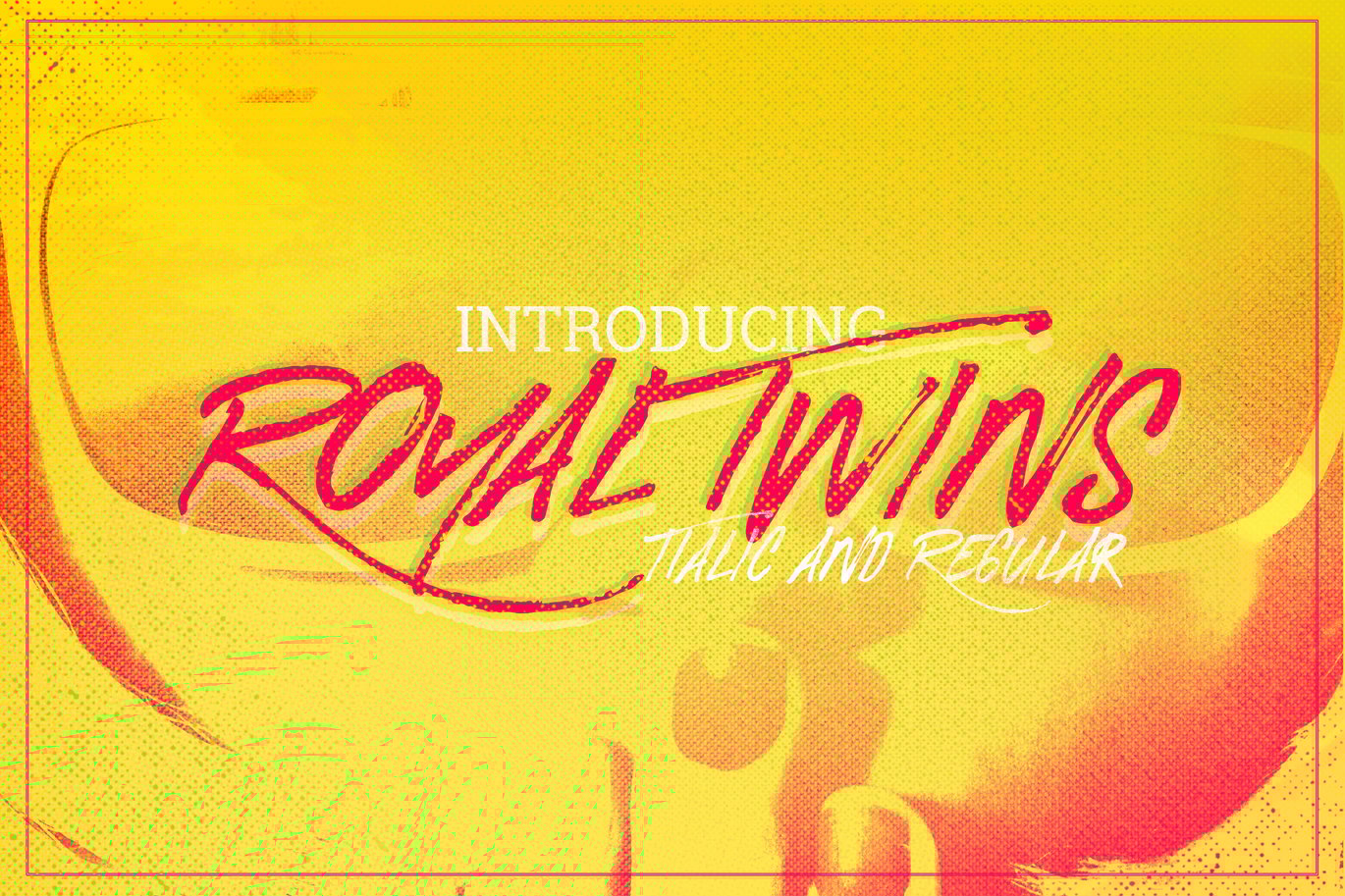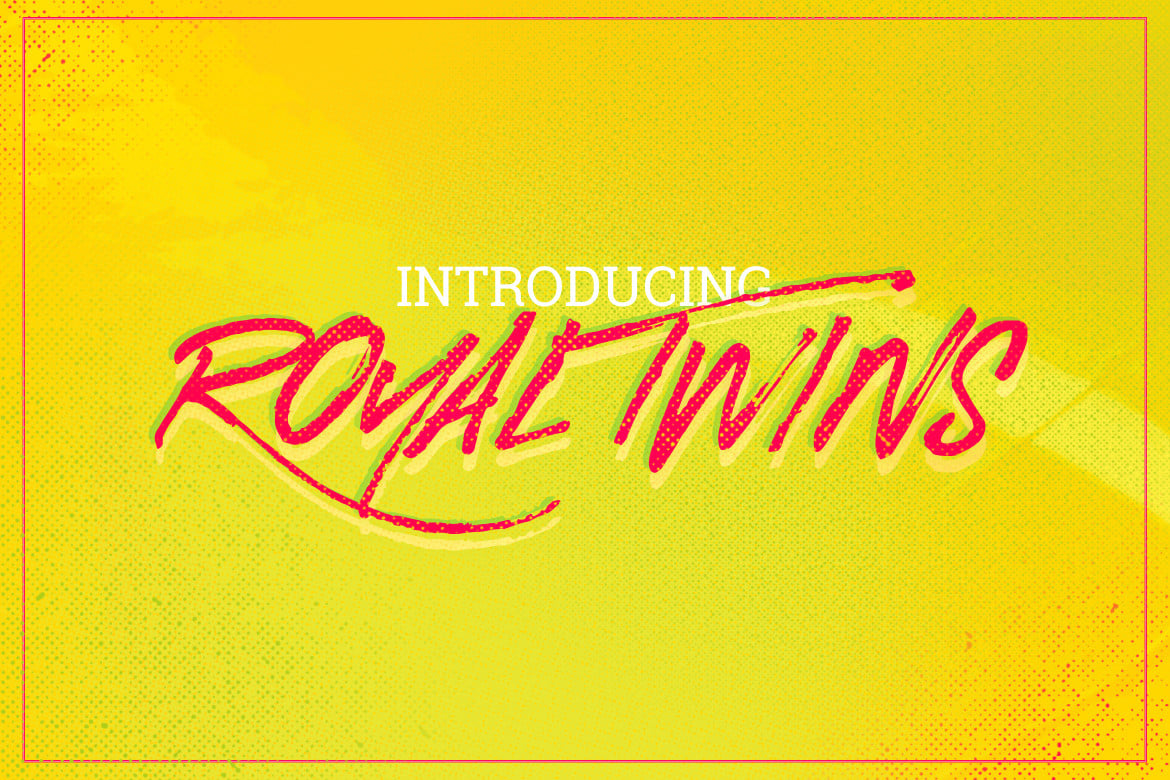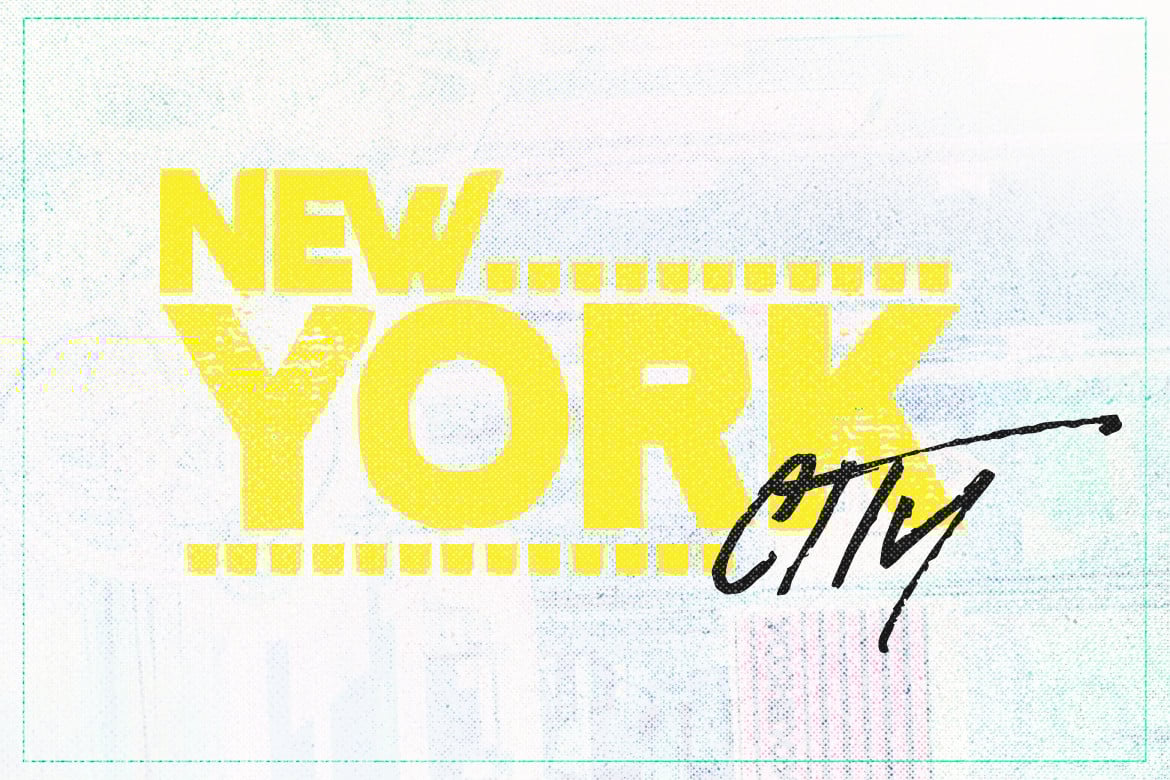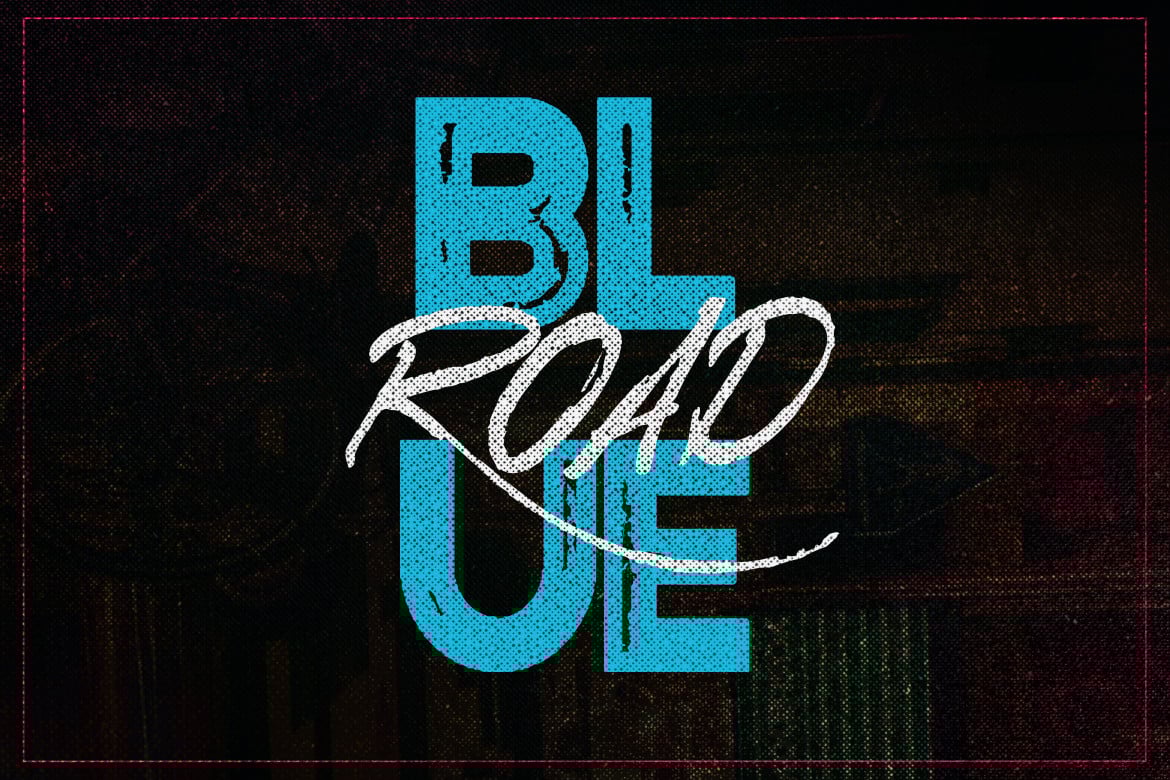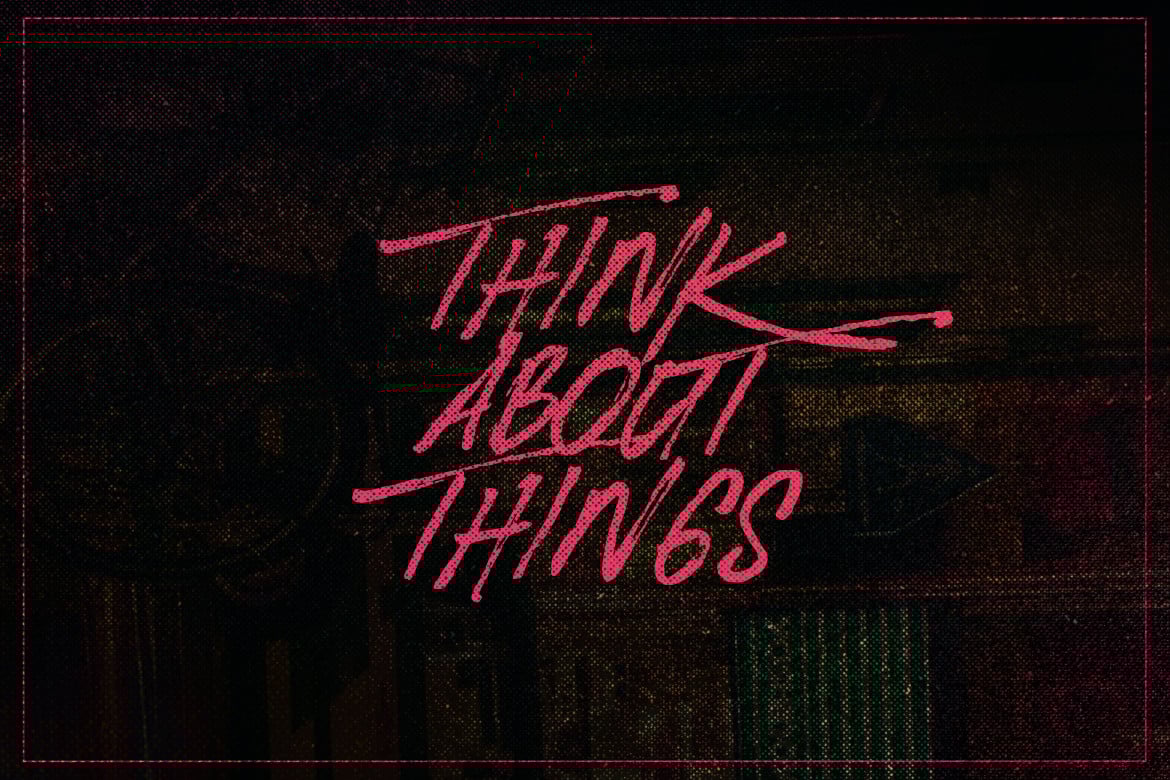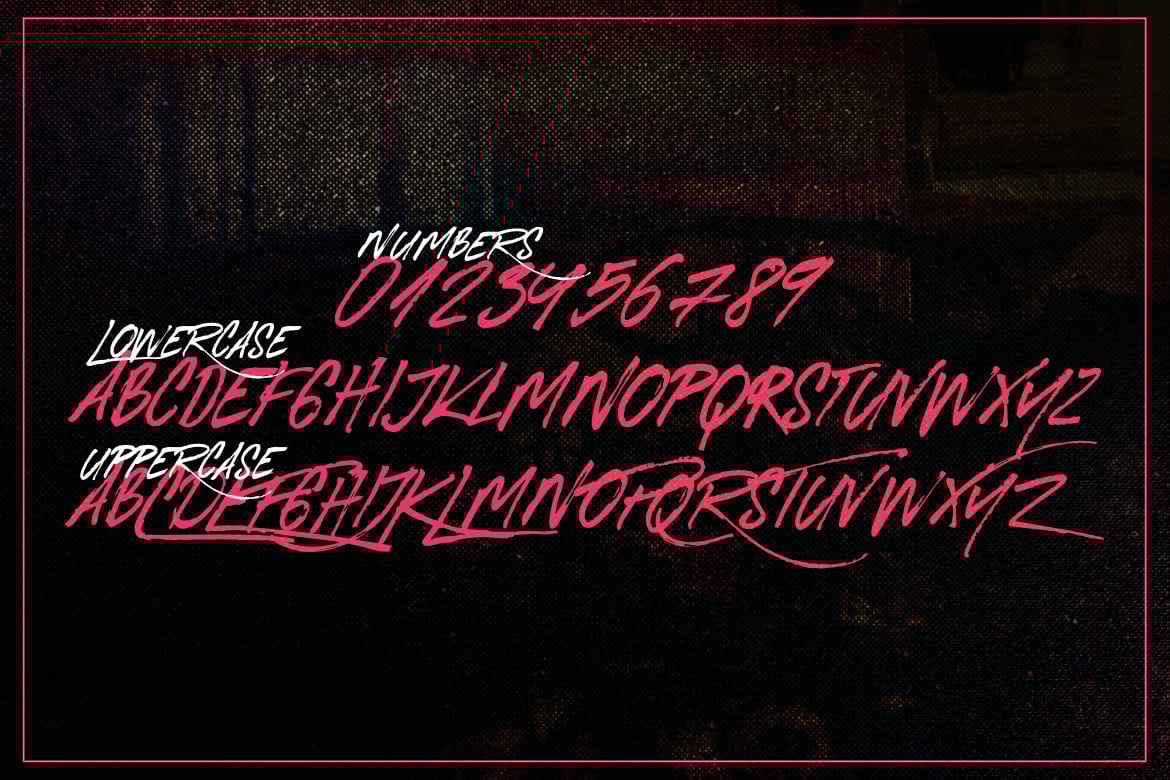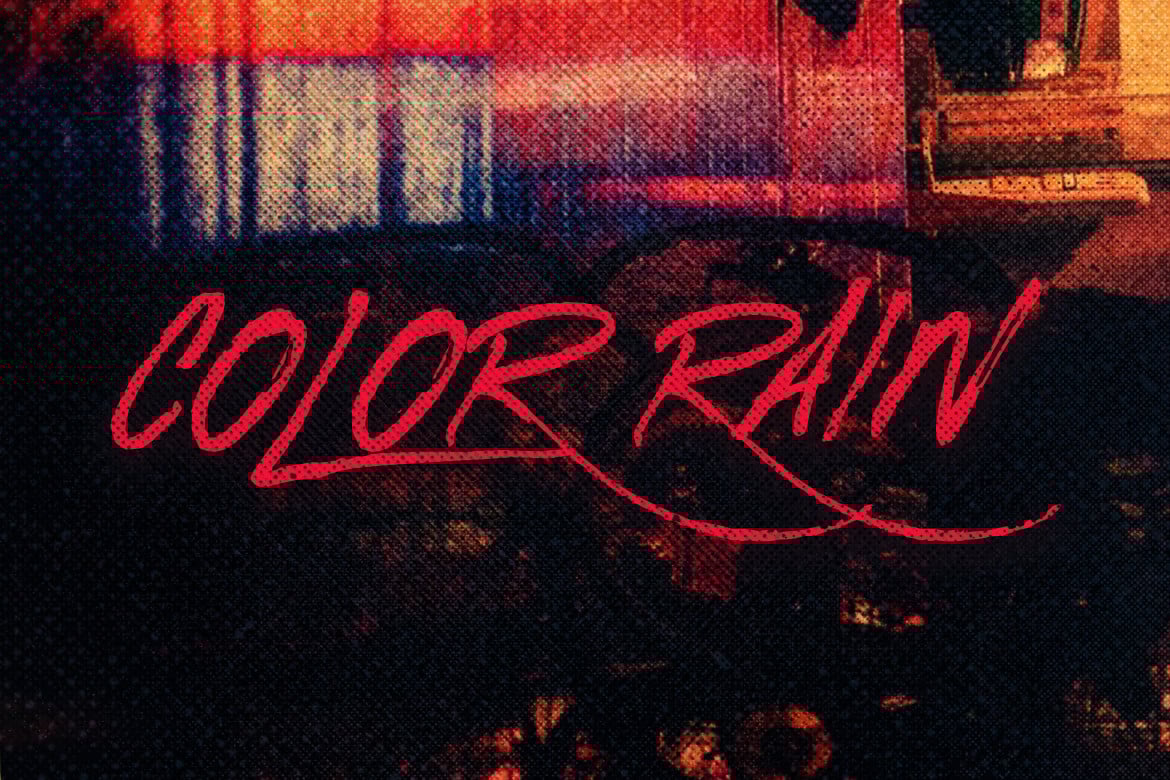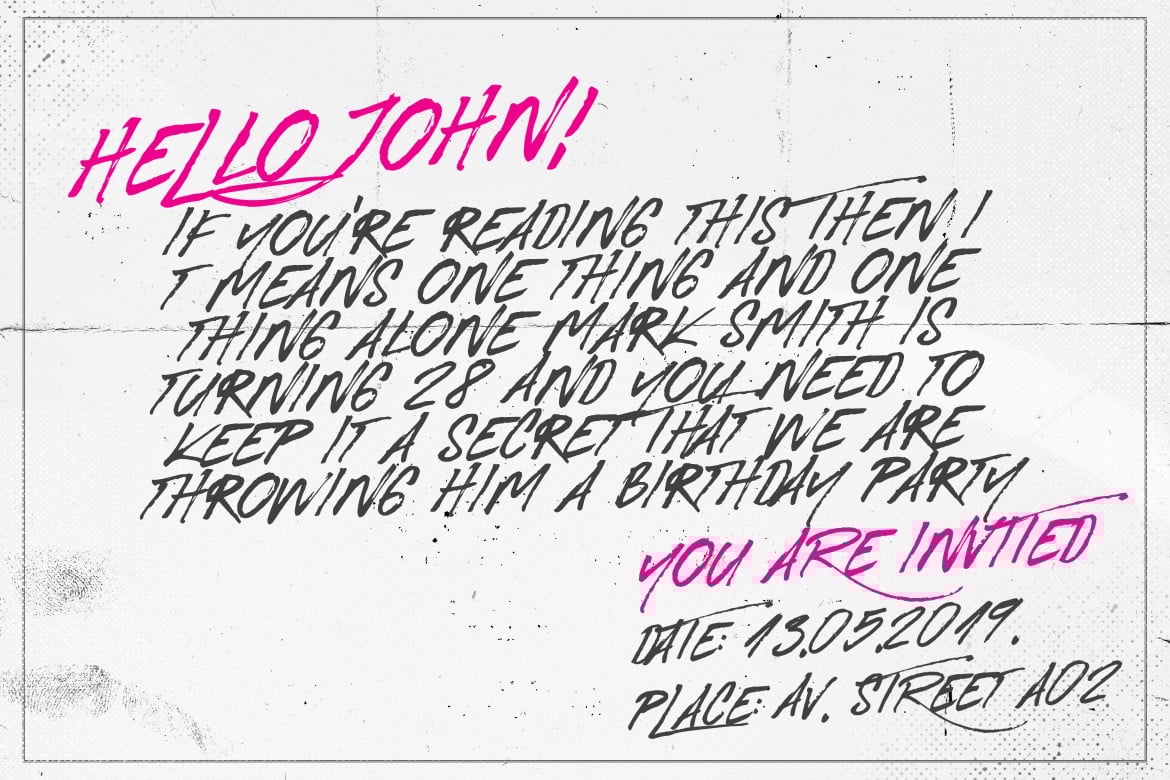
Royal Twins Font
Royal Twins Font is brush font including all Central European glyphs and it comes in regular and slant version. Font bursting with energy, quick strokes and sharp edges. Ideal for loud messages. Very interesting to use for logos, name tags, handwritten quotes, product packaging, merchandise, social media & greeting cards.
Also, ideal to make t-shirts design and other clothing products.
Royal Twins – Hand brushed font including all uppercase letters which has a complete set of A-Z, and support for whole Central European letters. Combinate uppercase and lowercase letters to get interesting text styles.
RoyalTwins Italic – 18° slant hand brushed font including all uppercase letters which has a complete set of A-Z, and support for whole Central European letters.